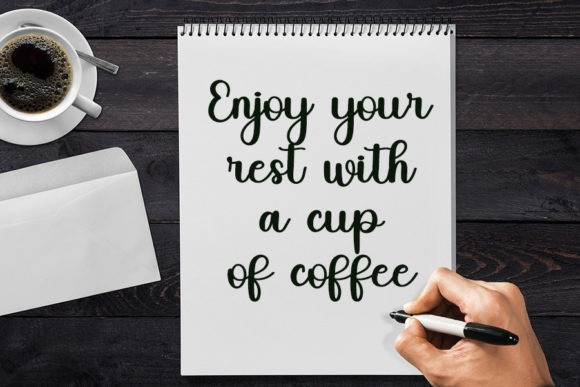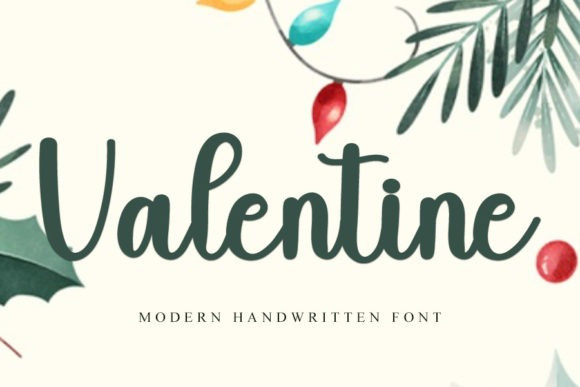
Valentine Moder Font
Valentine Script Font is a round lettered handwritten font with a delicate atmosphere and spotless form. Not too thin and not too thick, balanced and varied, this font was designed to enhance the beauty of your projects.